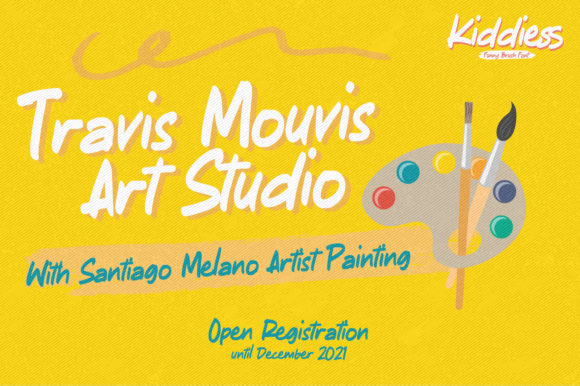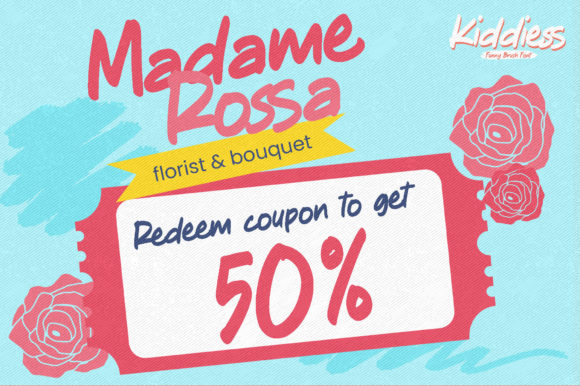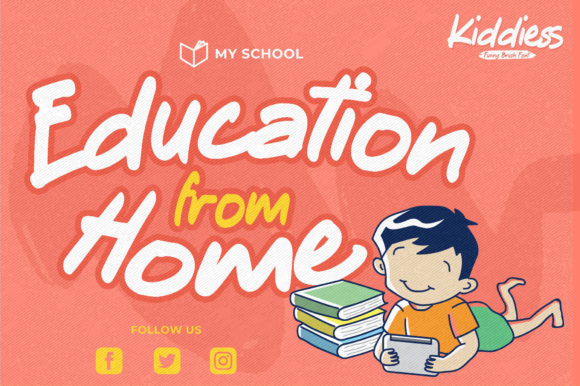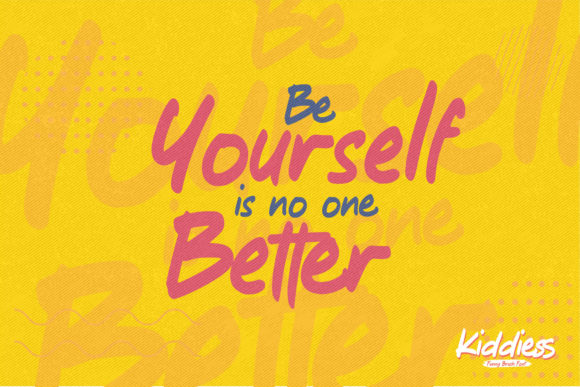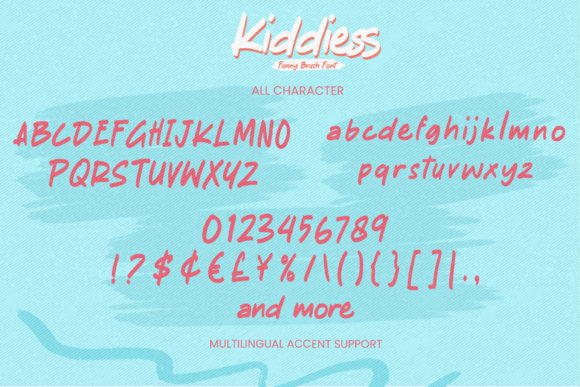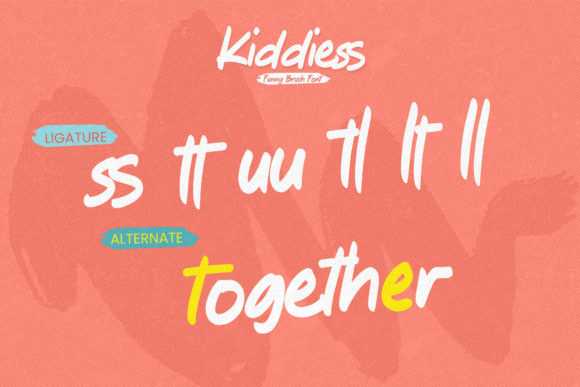
Introduction to Kiddiess Font
Kiddiess is a funny brush font, playful kids theme with a natural feel.
This handmade font is perfect for invitation, logo, kids, book cover, craft, or any design purposes .